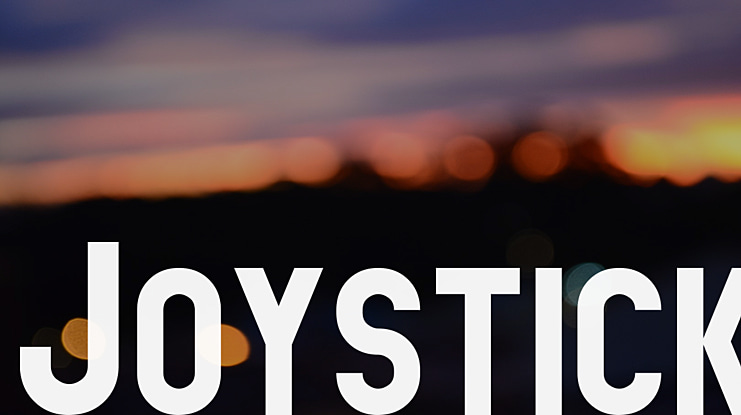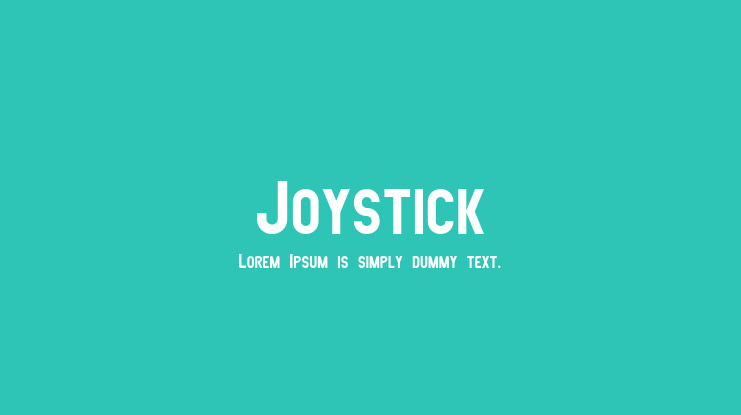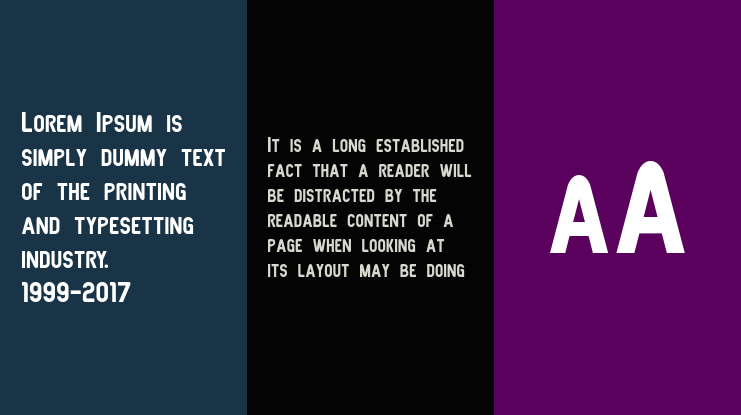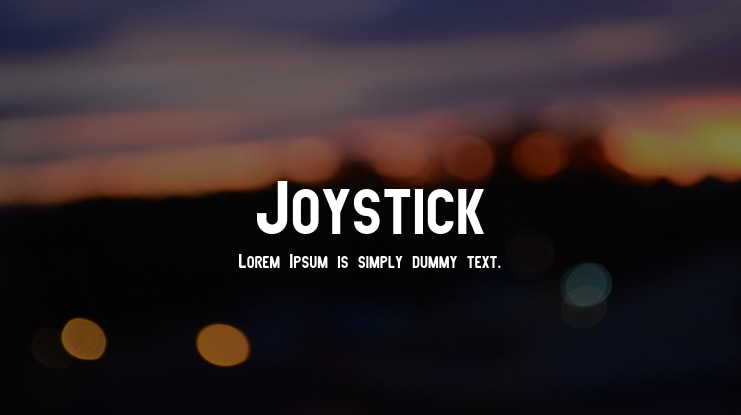
Joystick Font Family
Neale Davidson
This retro-styled typeface is based on the lettering used from Sears' Tele-Games cartridges (rebranded Atari 2600 games). Includes full alphabet, extended characters, euro. Includes bold and italic versions.